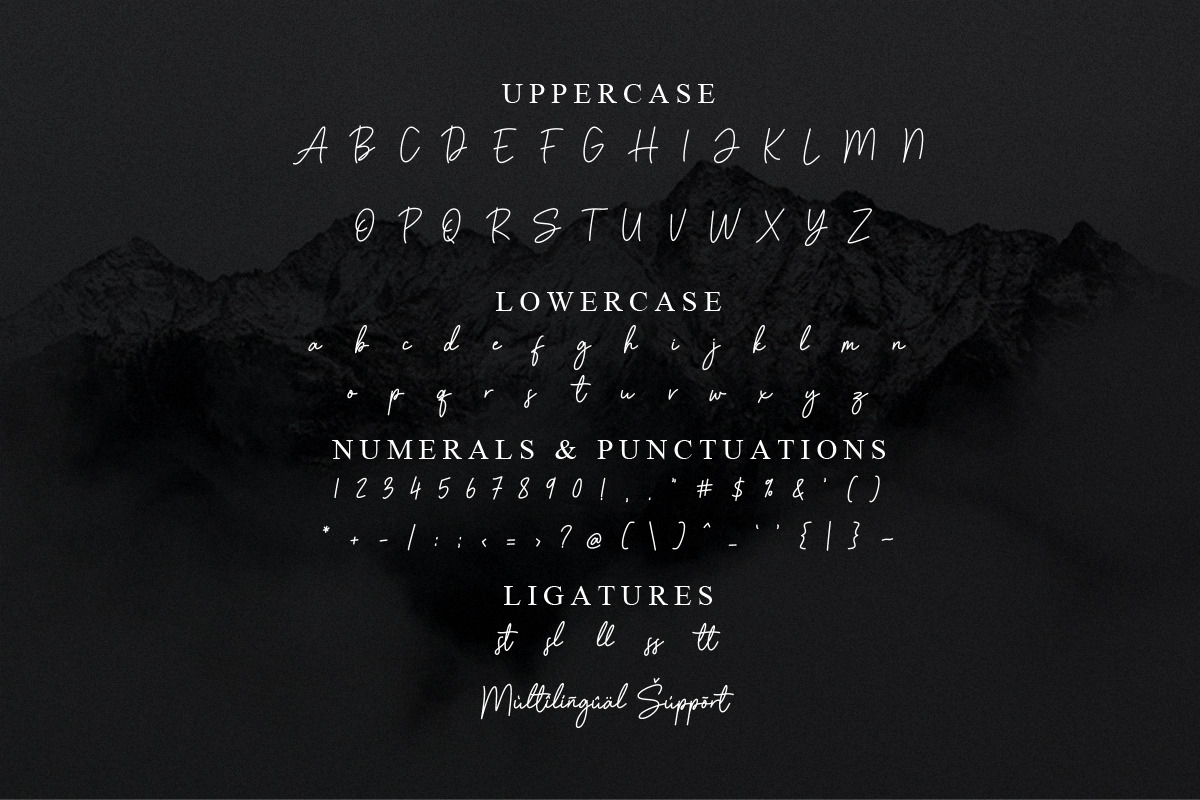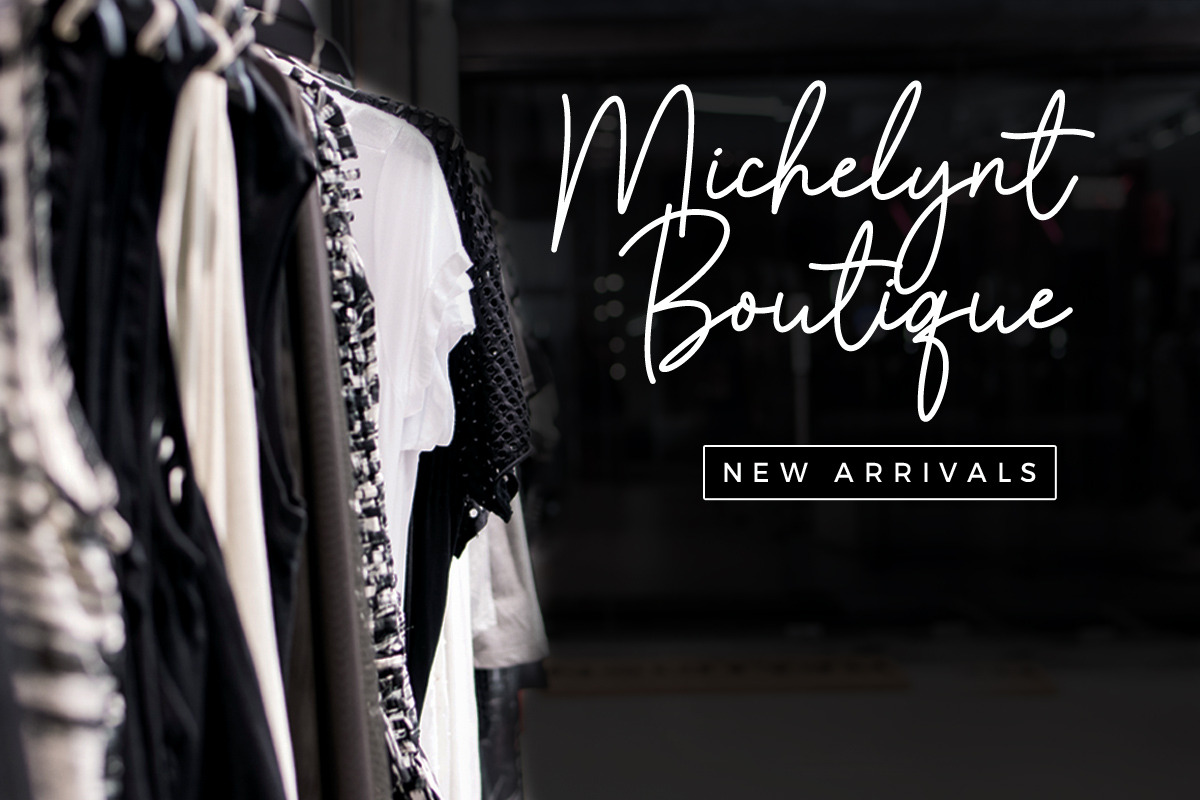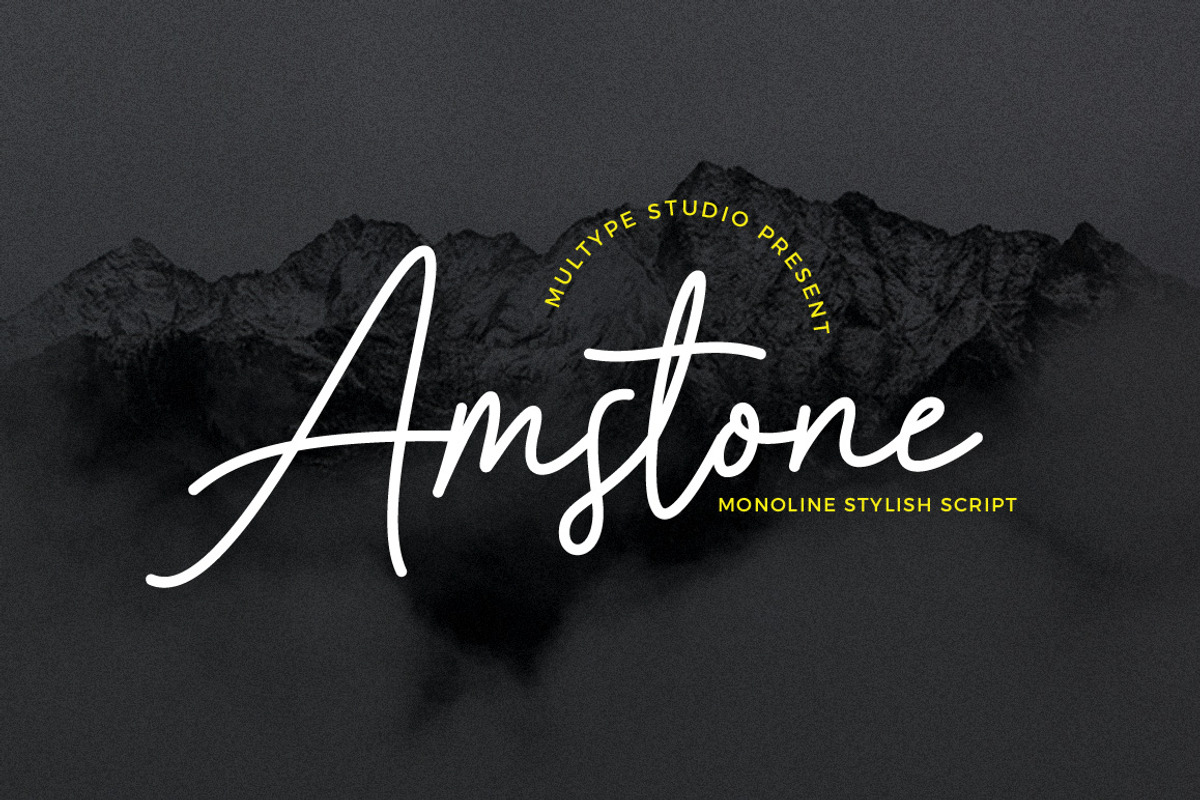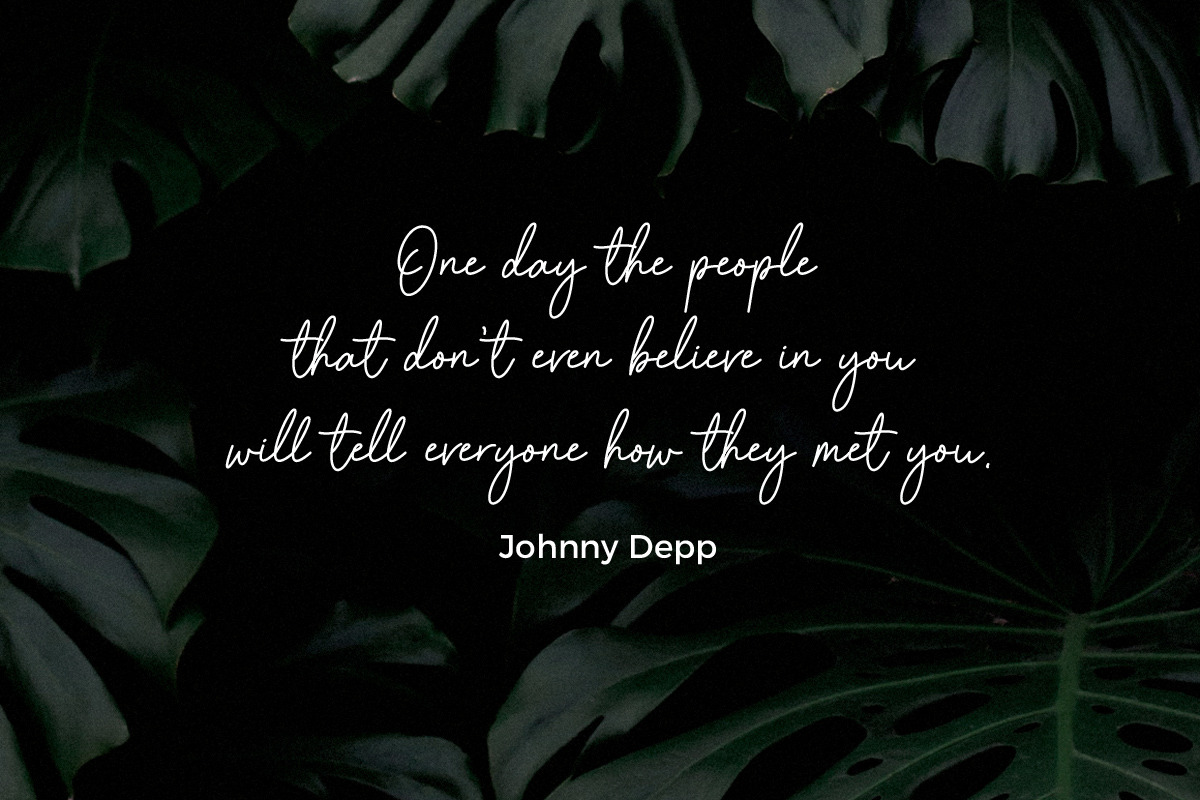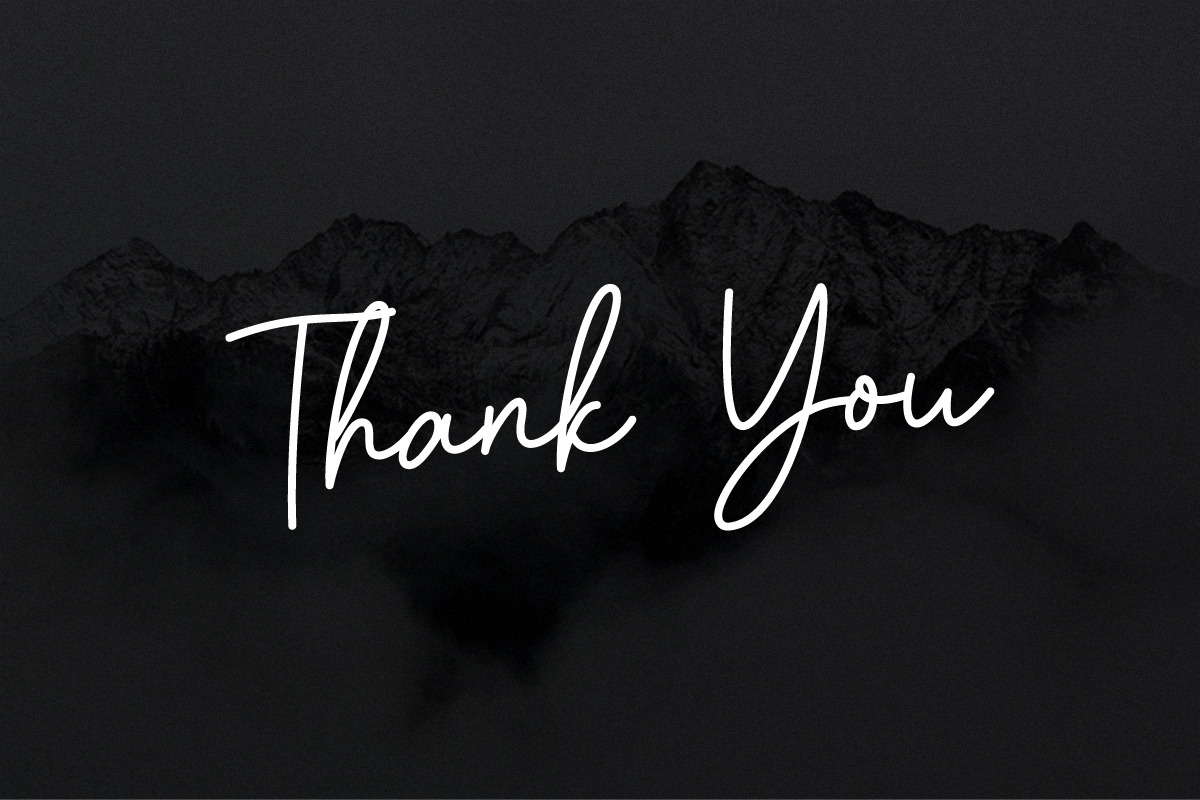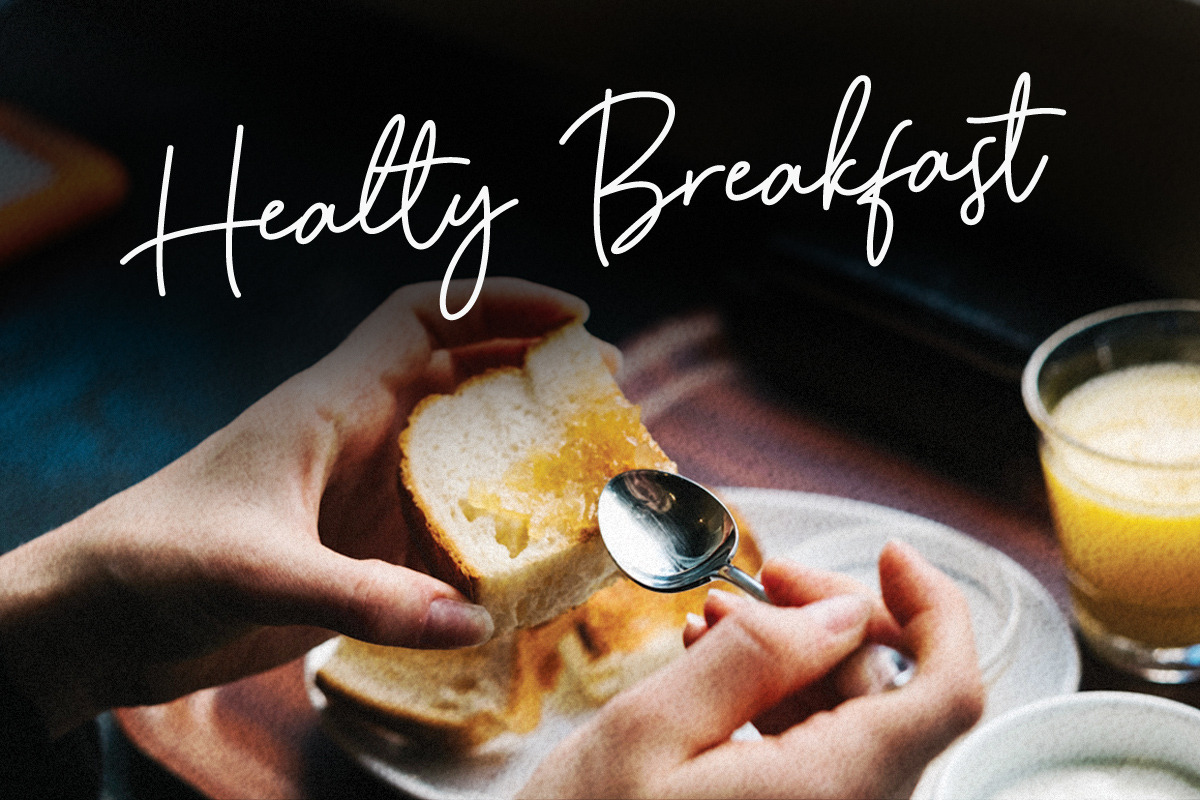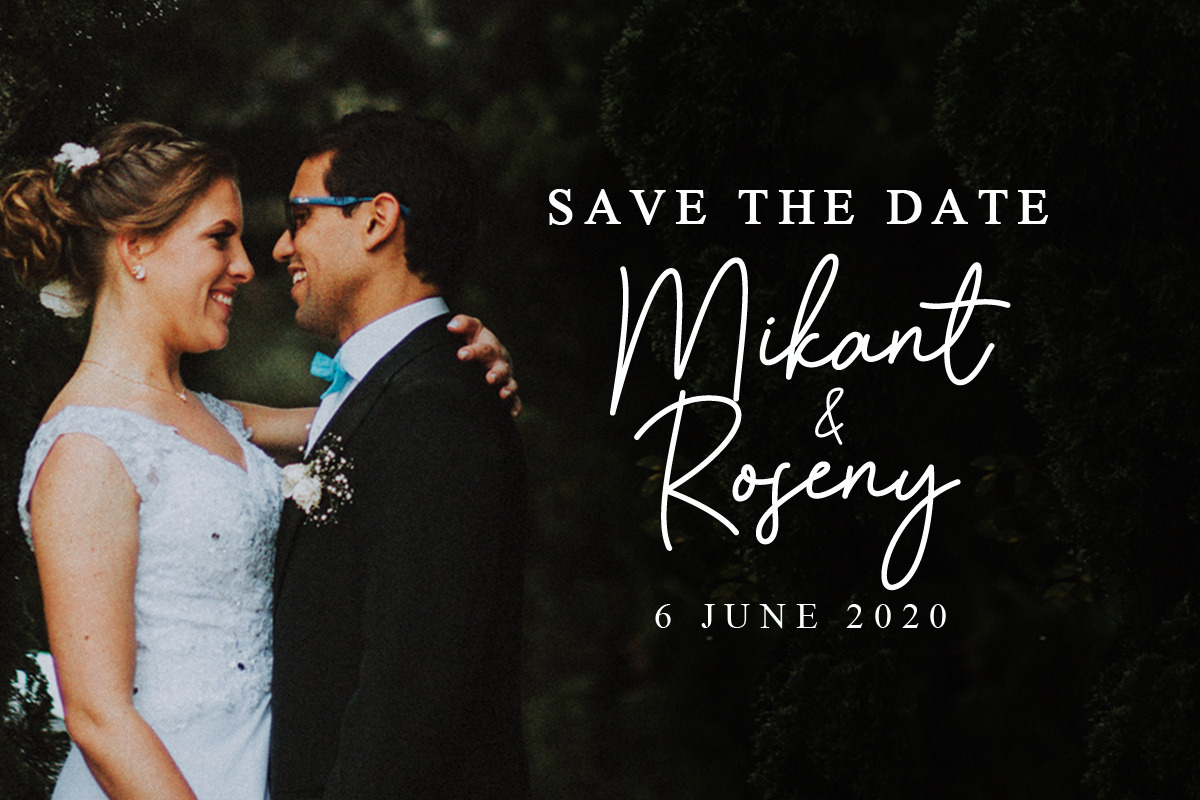
Amstone Stylish Font
Amstone is a monoline stylish script font make this font looks elegant, natural, stylish and perfect for any awesome projects that need handwriting taste. Amstone is perfect for photography, watermark, social media posts, advertisements, logos & branding, invitation, product designs, label, stationery, wedding designs, product packaging, special events or anything that need handwriting taste.
- Numbers & Symbols